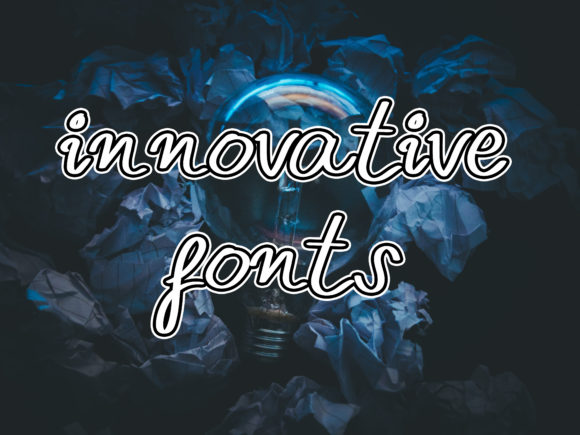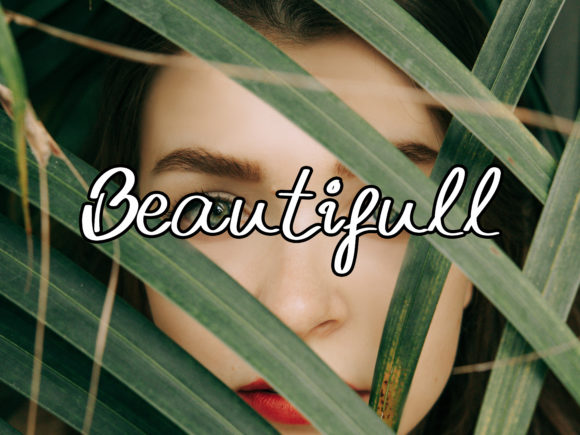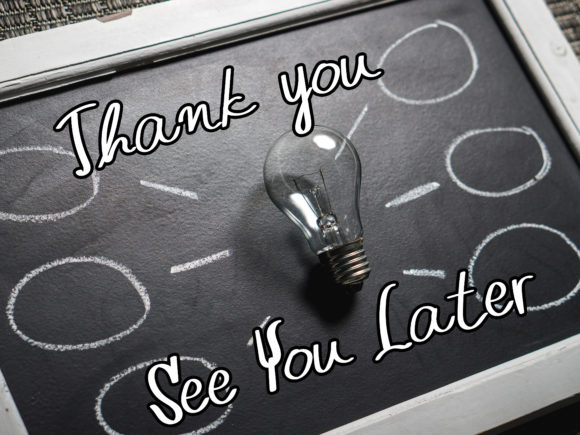
Break Down Font
About Break Down Font
Break Down is a flowing and festive handwritten font. Designed to become a top choice, this font has the potential to bring each of your creative ideas to the highest level!